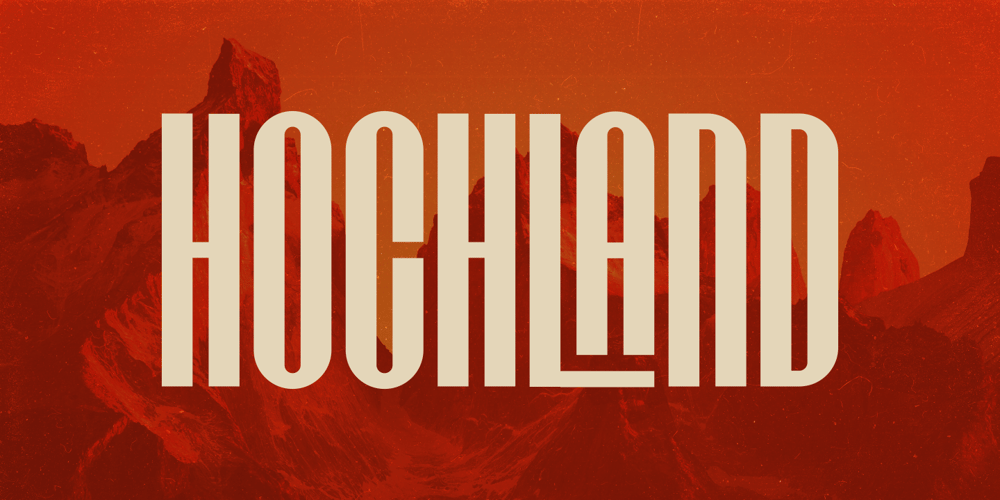
Hochland
Hochland font
Hochland Font Family was designed by Reza Rasenda and published by Zealab Fonts Division. Hochland contains 1 styles and family package options. Hochland is a modern, condensed font, inspired by street urban style posters. It works well for headlines, logotypes, signs, posters, greeting card, letterhead, t-shirts, watermarks and more.